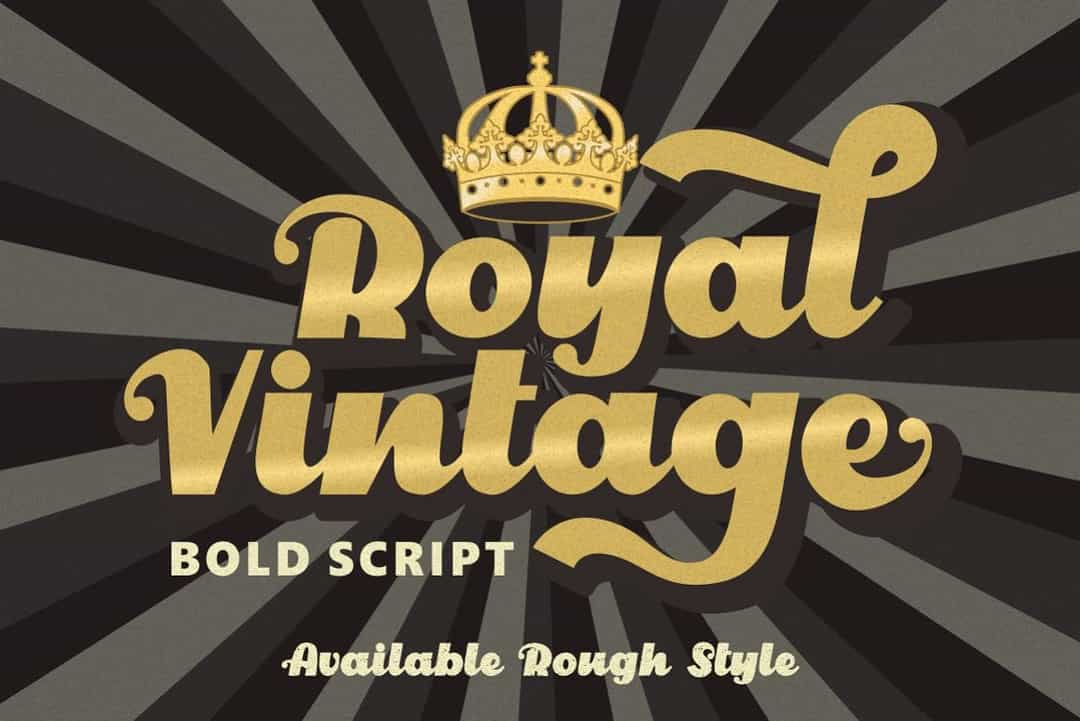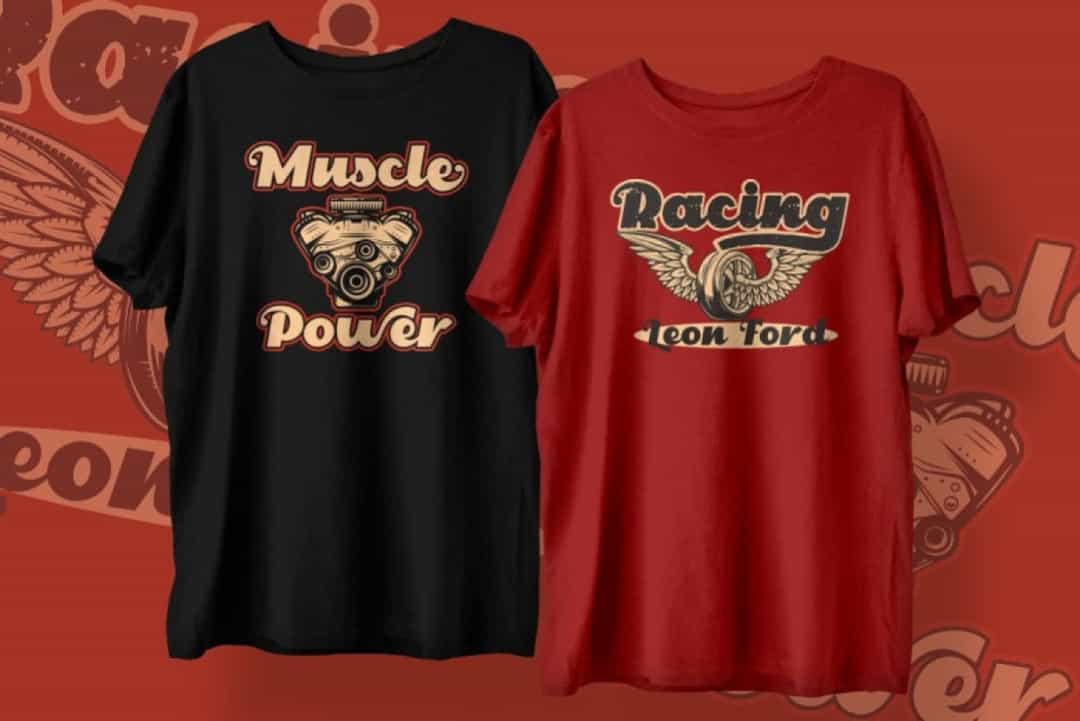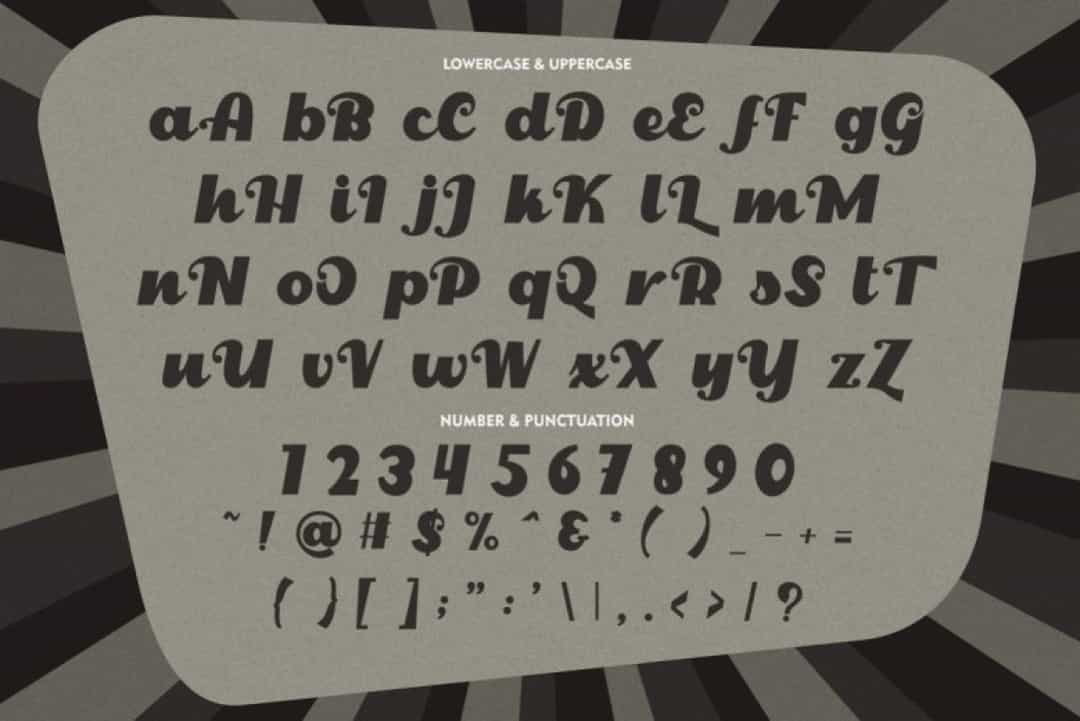
Discover Royal Vintage Font, part of the Retro Script Vintage collection—a versatile and unique font perfect for adding a personal touch to your projects. Download it for free and enjoy crafting designs with style, from invitations to social media posts. This font is available exclusively for personal use, giving you the freedom to create without limits. Unlock your creativity with Royal Vintage Font today!
Introduced Royal Vintage – retro bold script font. Inspired by vintage lettering and typography from the 1970s and 80s, combined with bold typographic styles. This font provides an uncluttered and rough version of its font; sure to take you back in time to those heady 70s days.